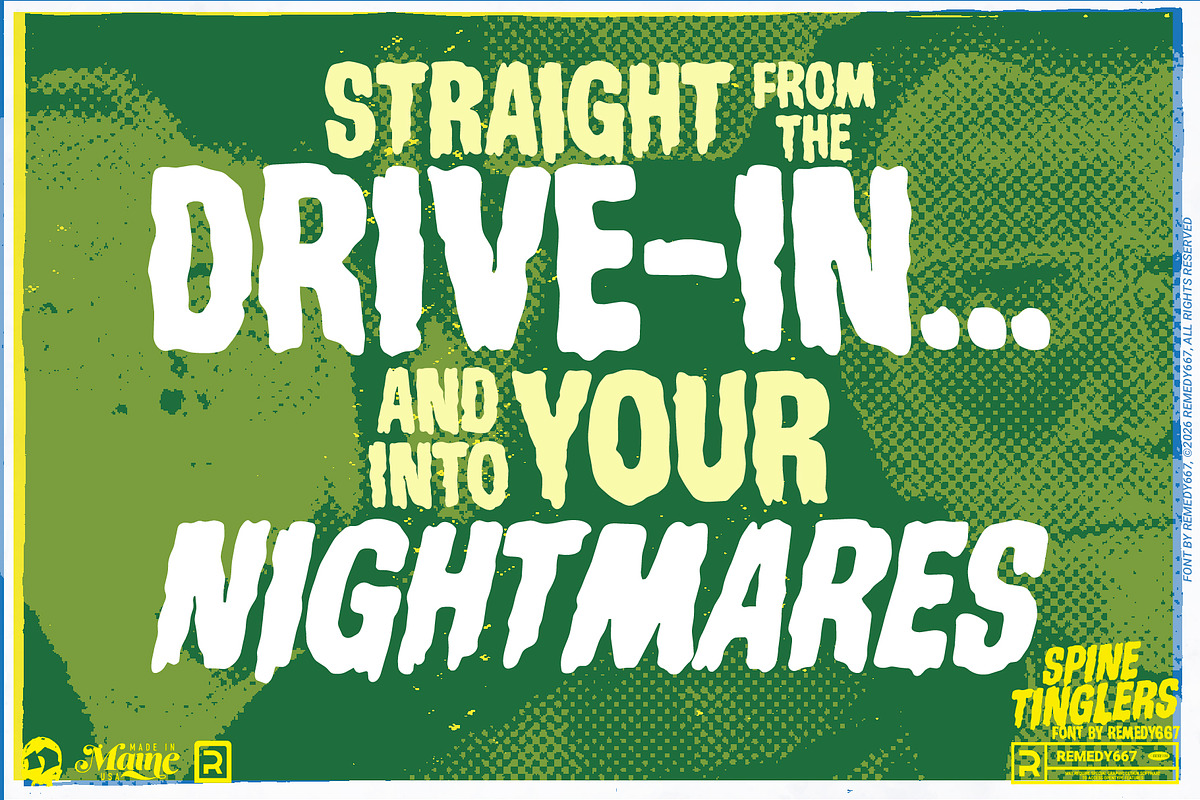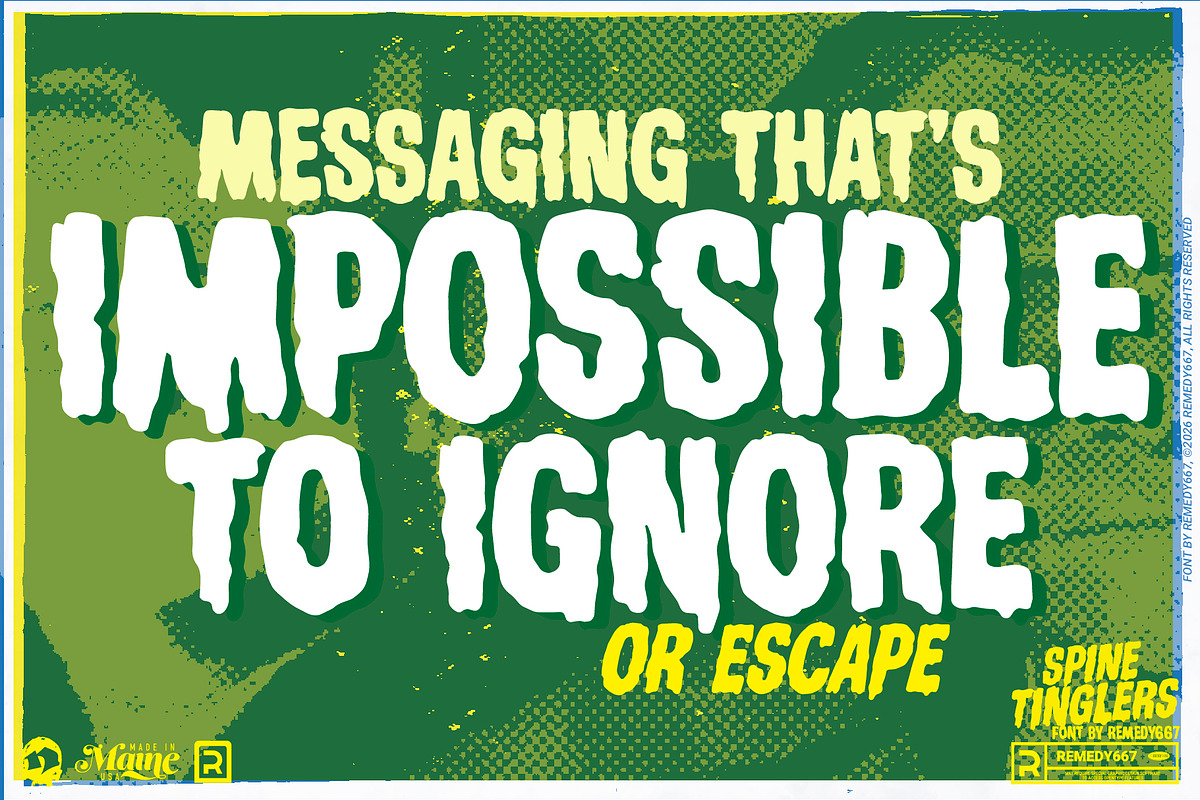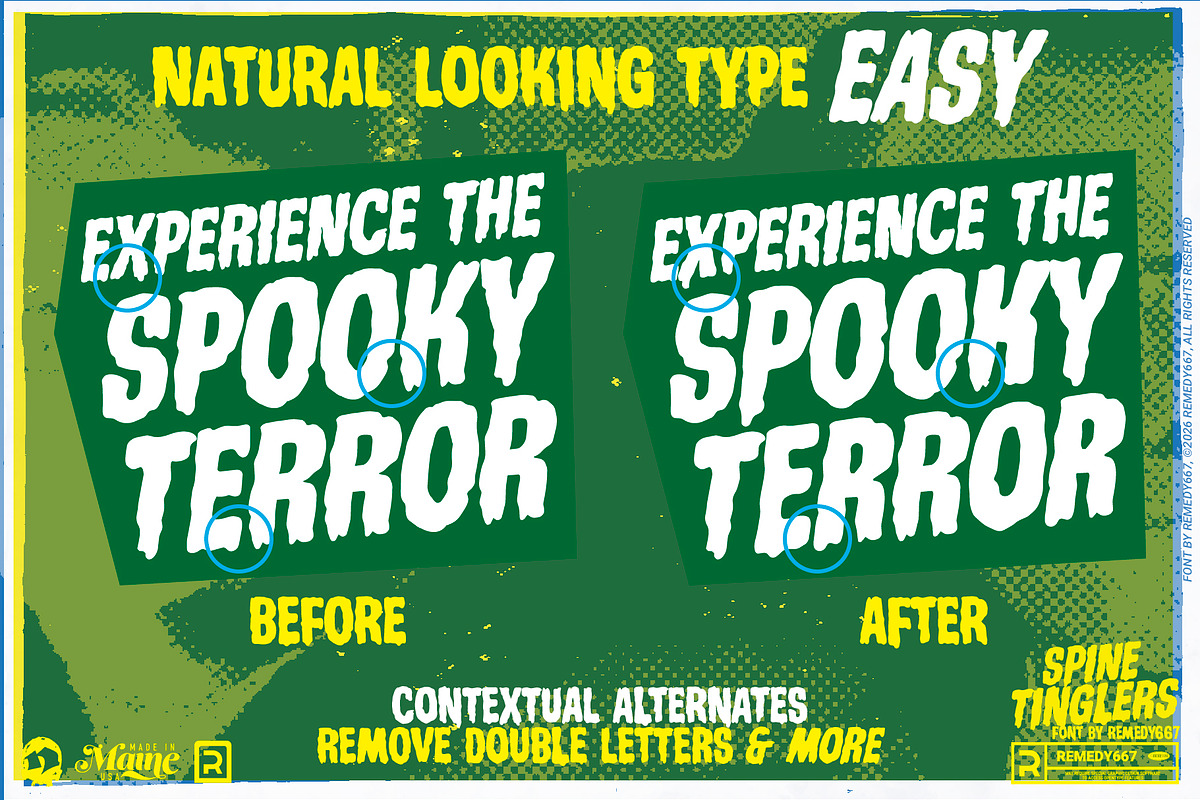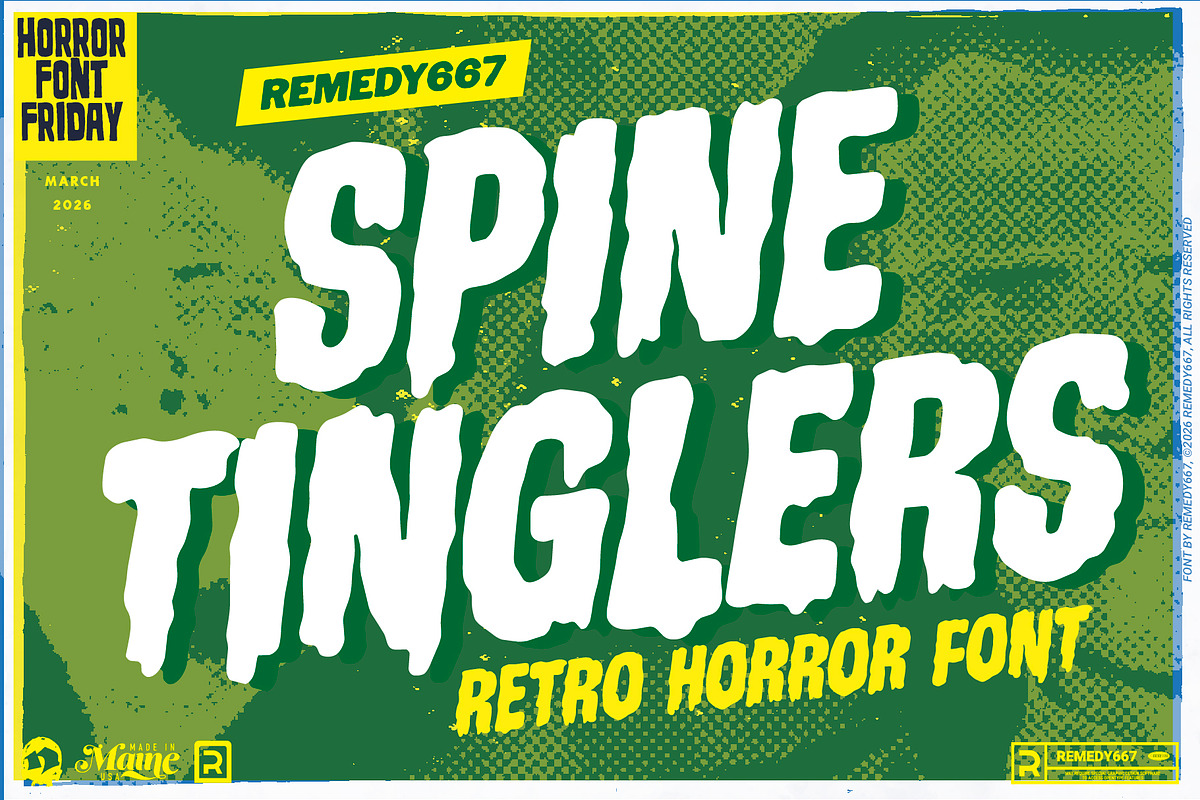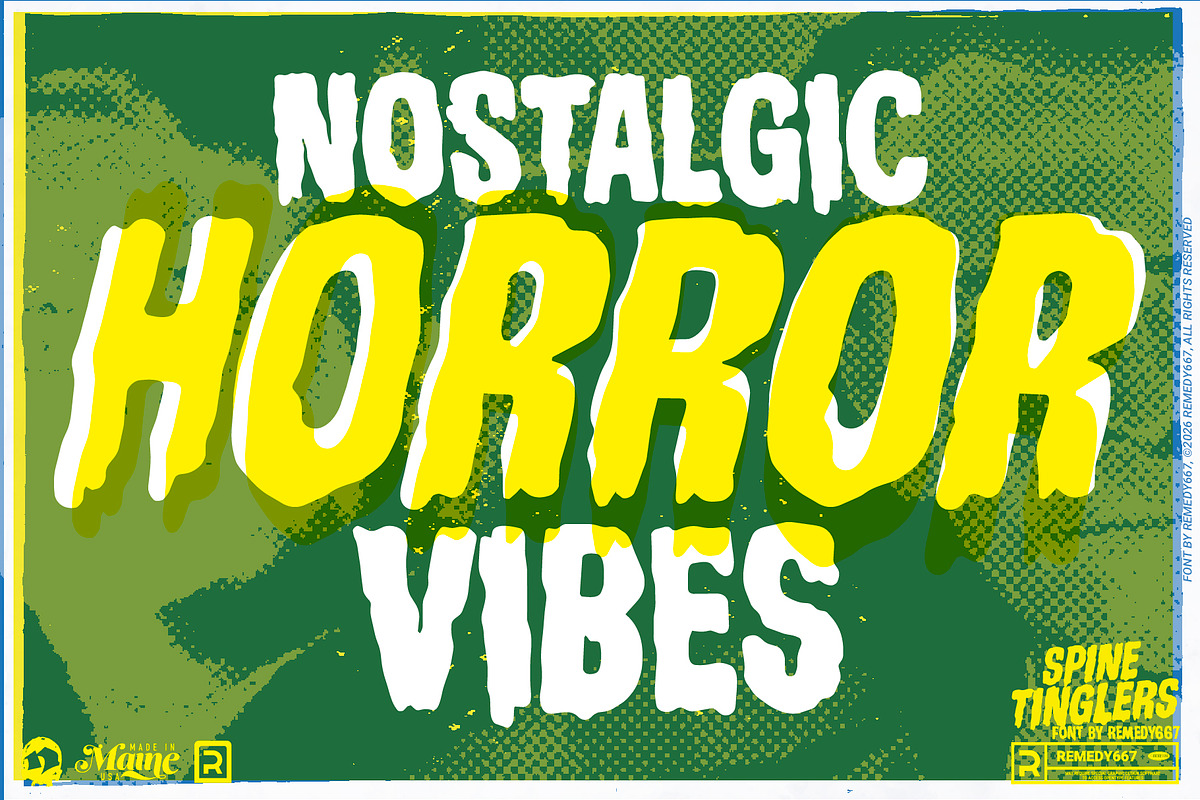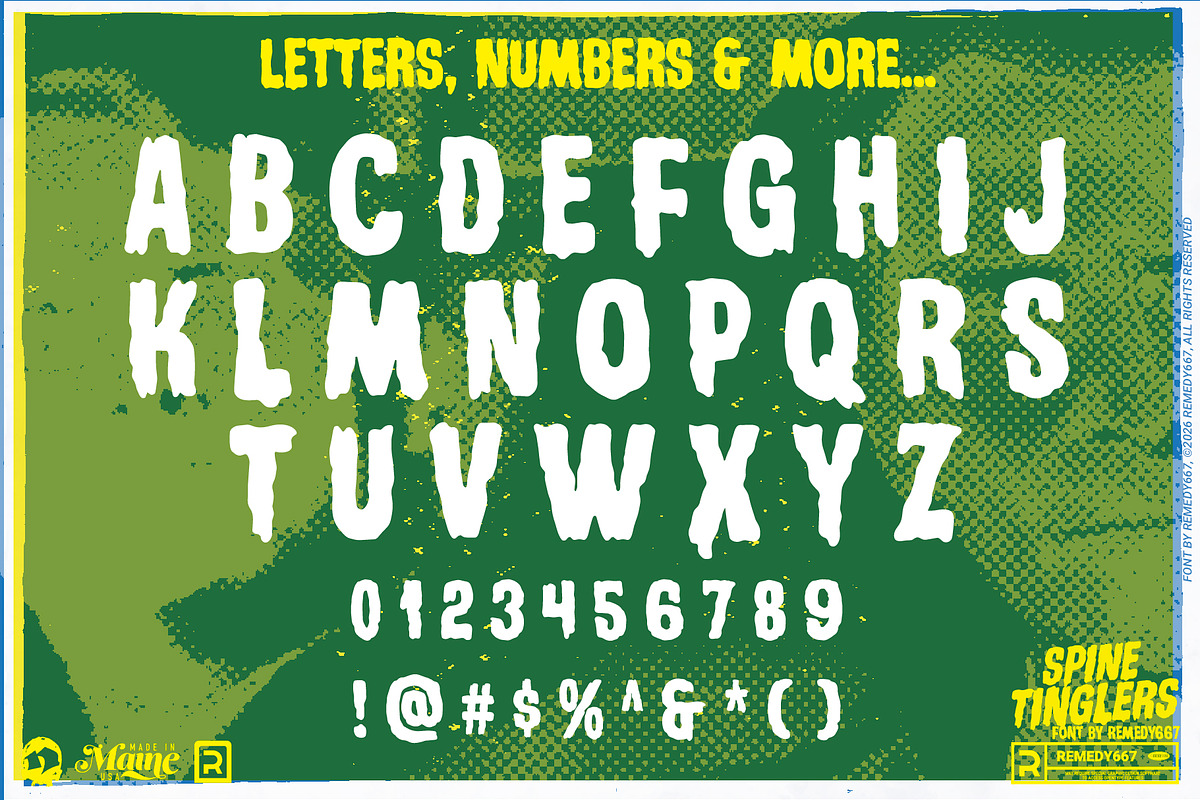
Spine Tinglers - Retro Horror Font
Prepare for a chill that crawls right up your backbone! Spine Tinglers is ripped from the classic horror press-book lettering of the Blood Suckers / Blood Thirst double feature! Where every word promises unspeakable horrors to come! Spine Tinglers is designed for those who like their devils in the details.
Spine Tinglers hand-drawn horror typeface is perfect for subtitles, taglines, and those scream-worthy catchwords that grab your audience by the attention span. Complete with shape-shifting letterforms, Spine Tinglers feels alive compared to other basic fonts. Check it out today, before it grabs you…
- Perfect for subtitles, taglines, and horror catchphrases
- Contextual alternates for more natural looking letterforms
- Includes Regular and Oblique styles for flexible design
- Multilingual support for global domination in foreign markets